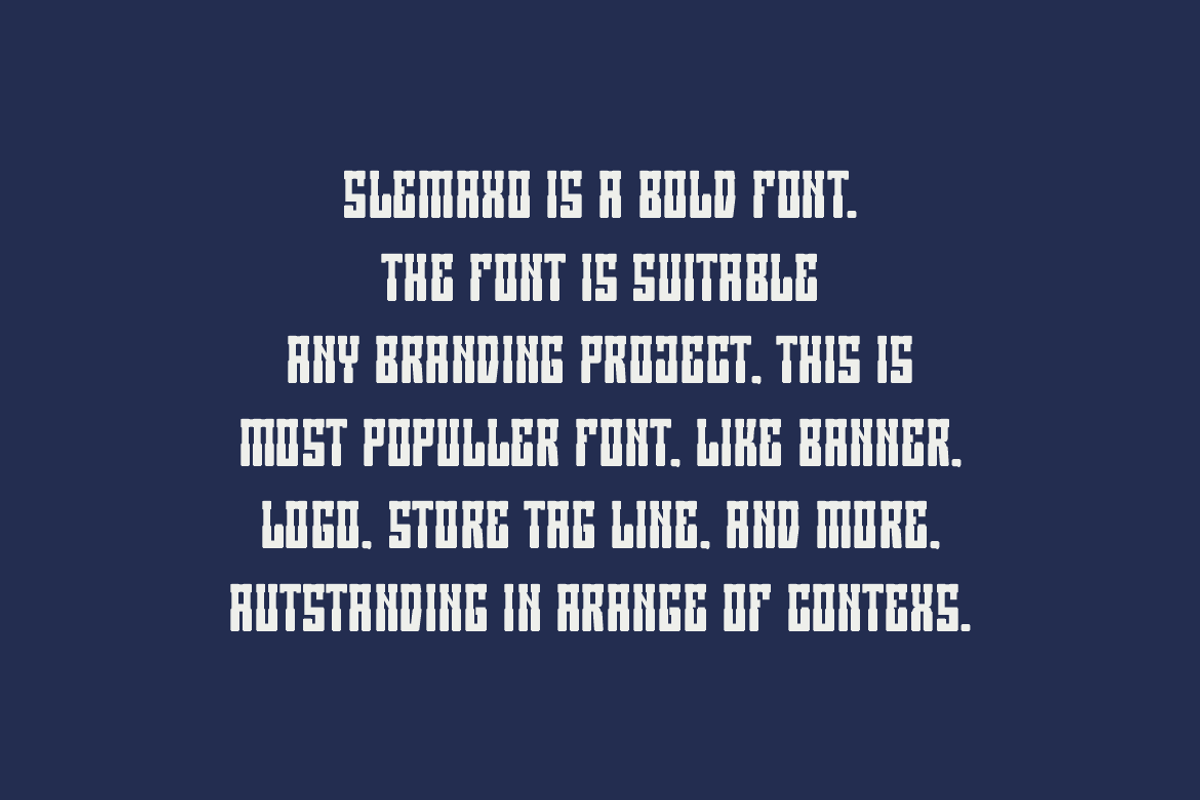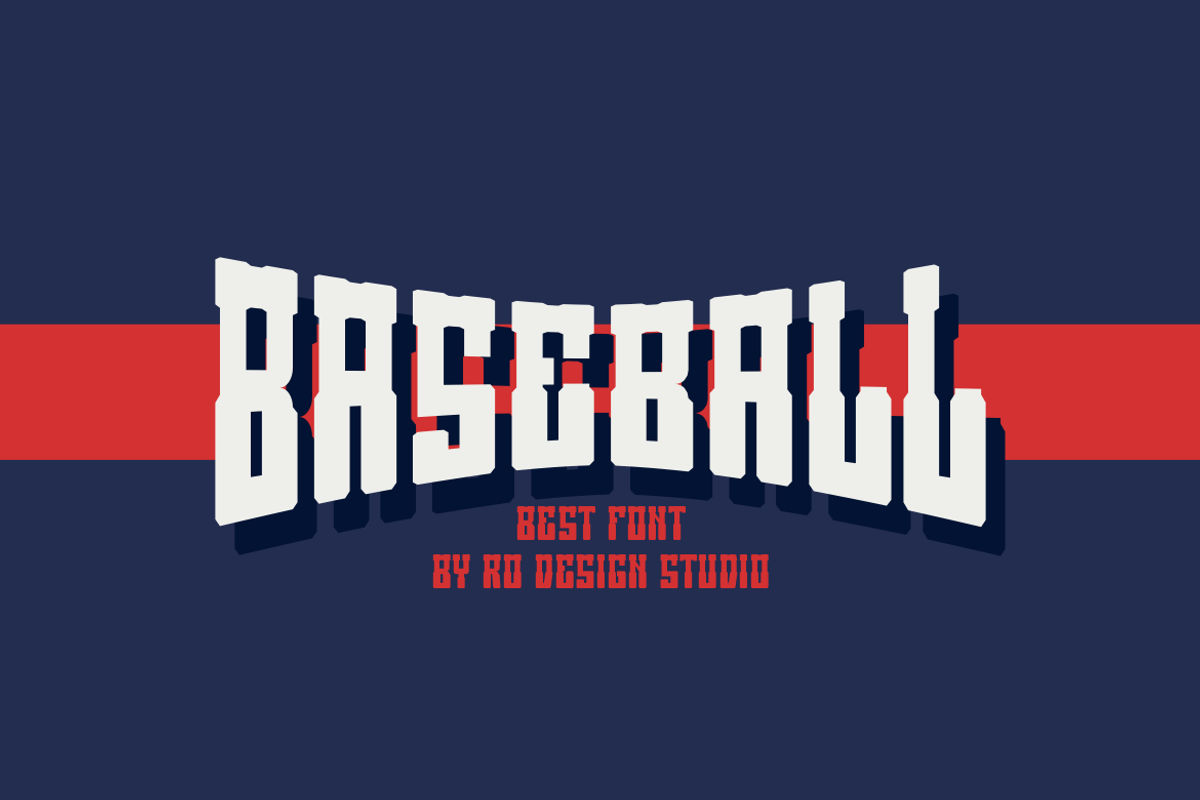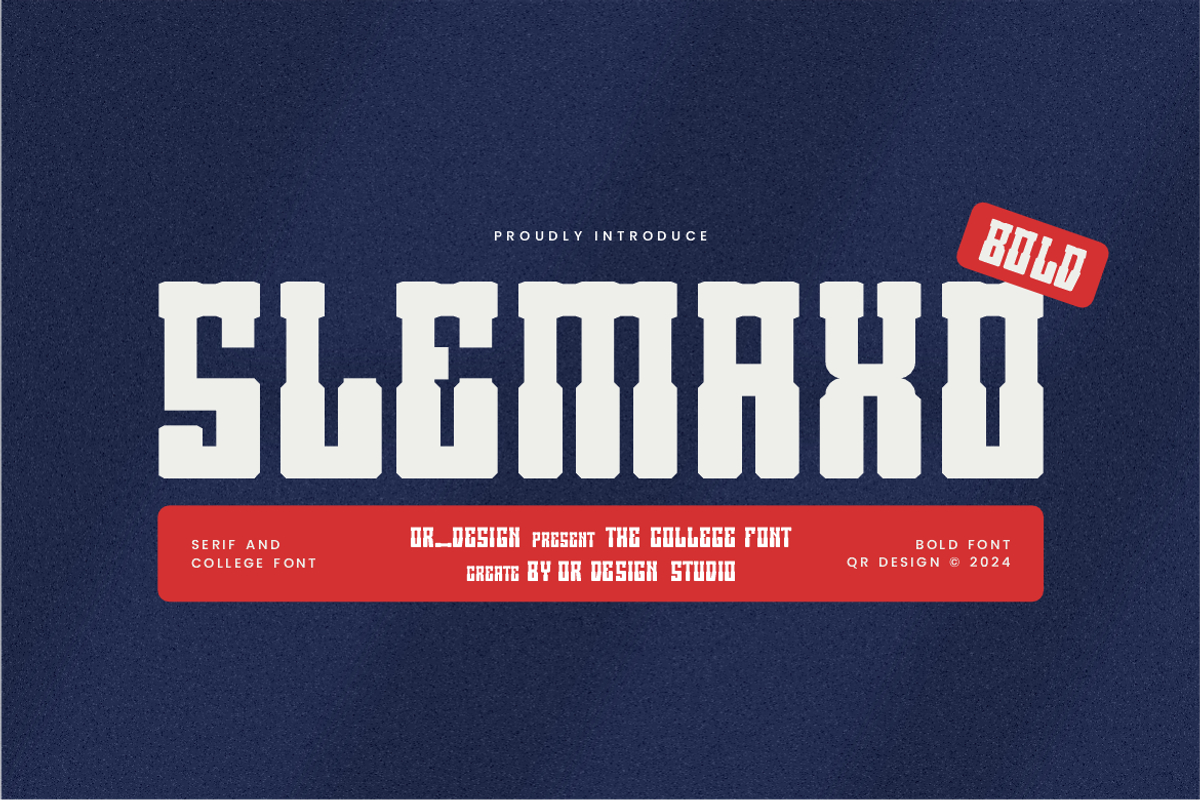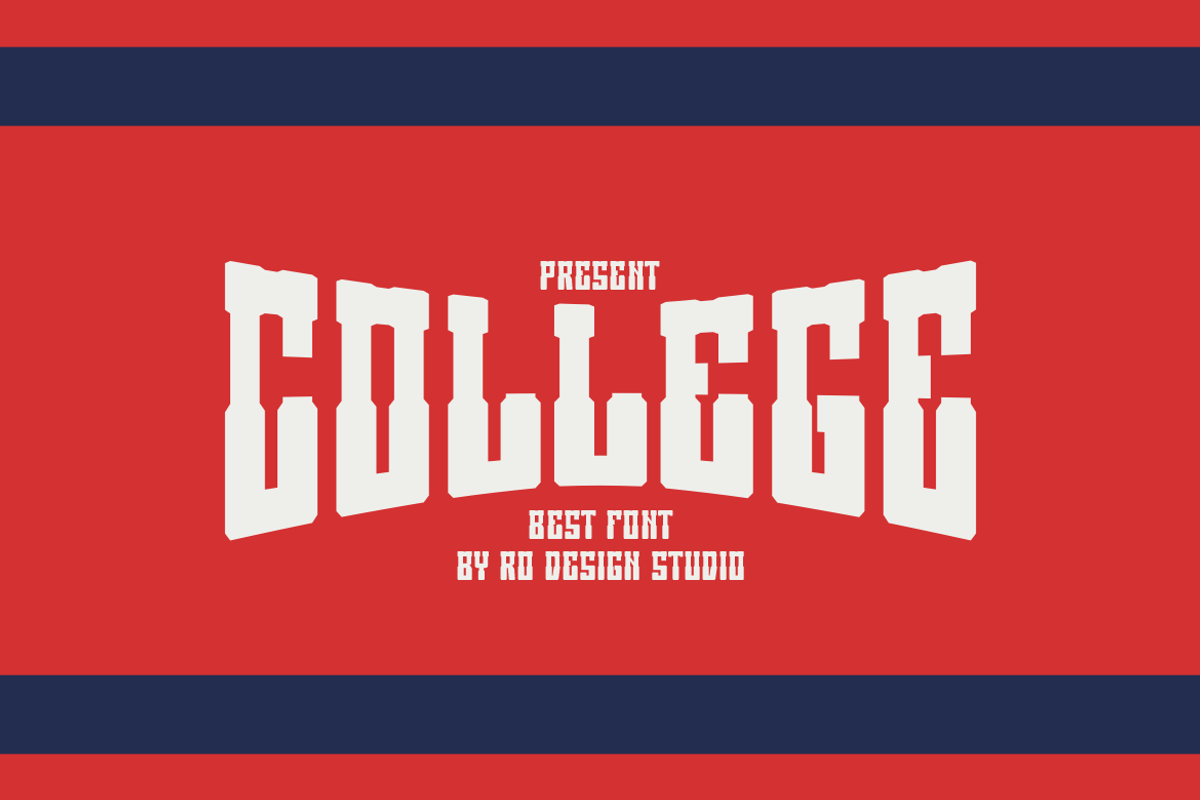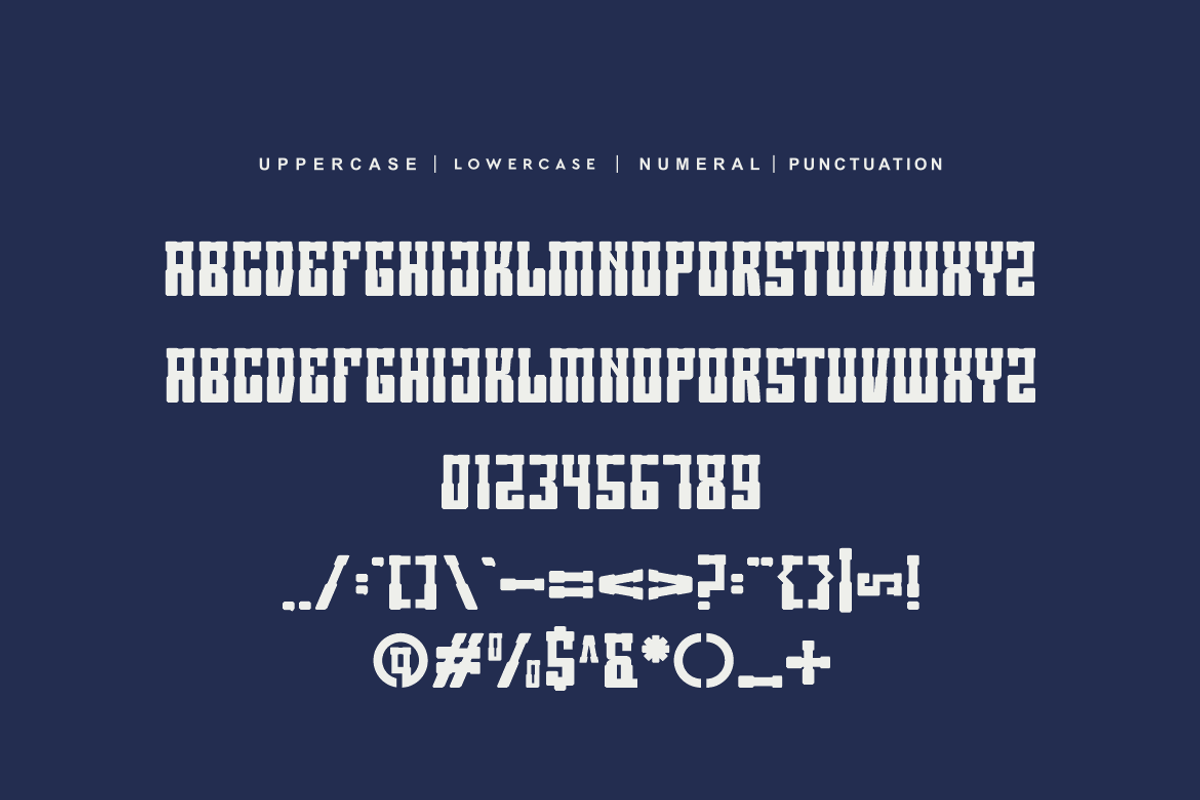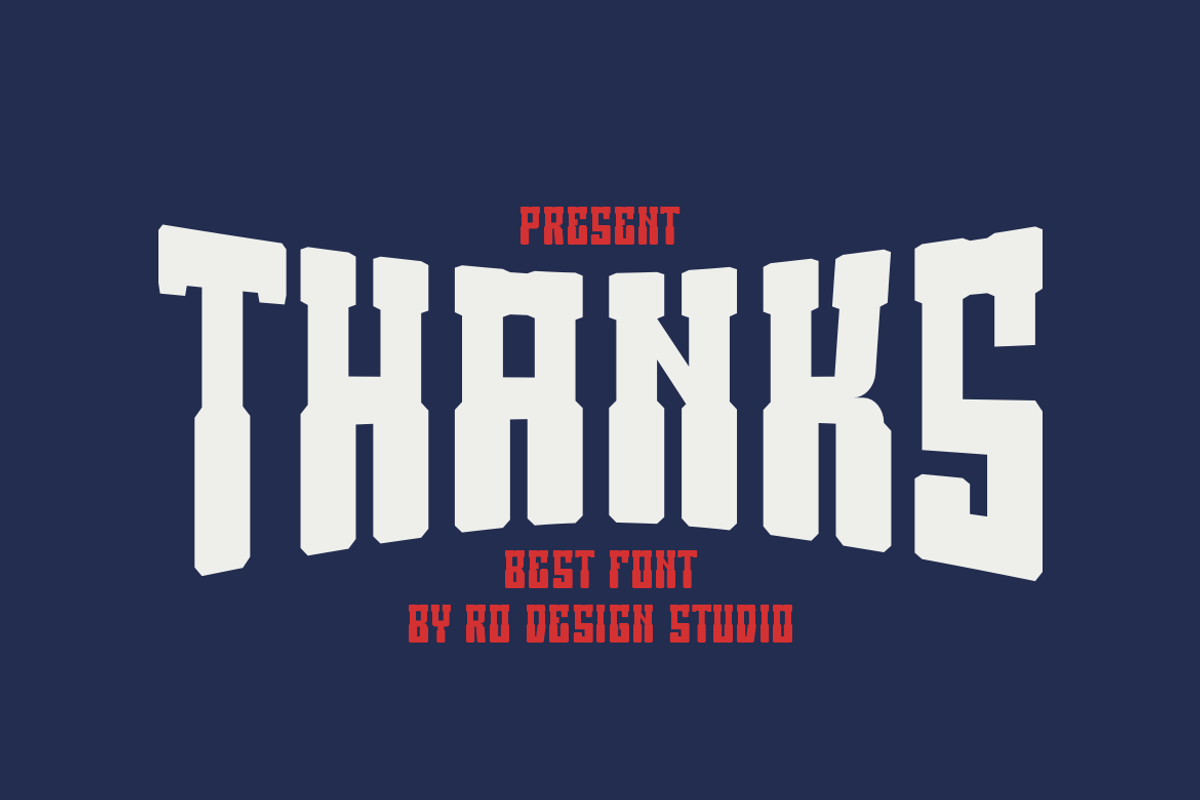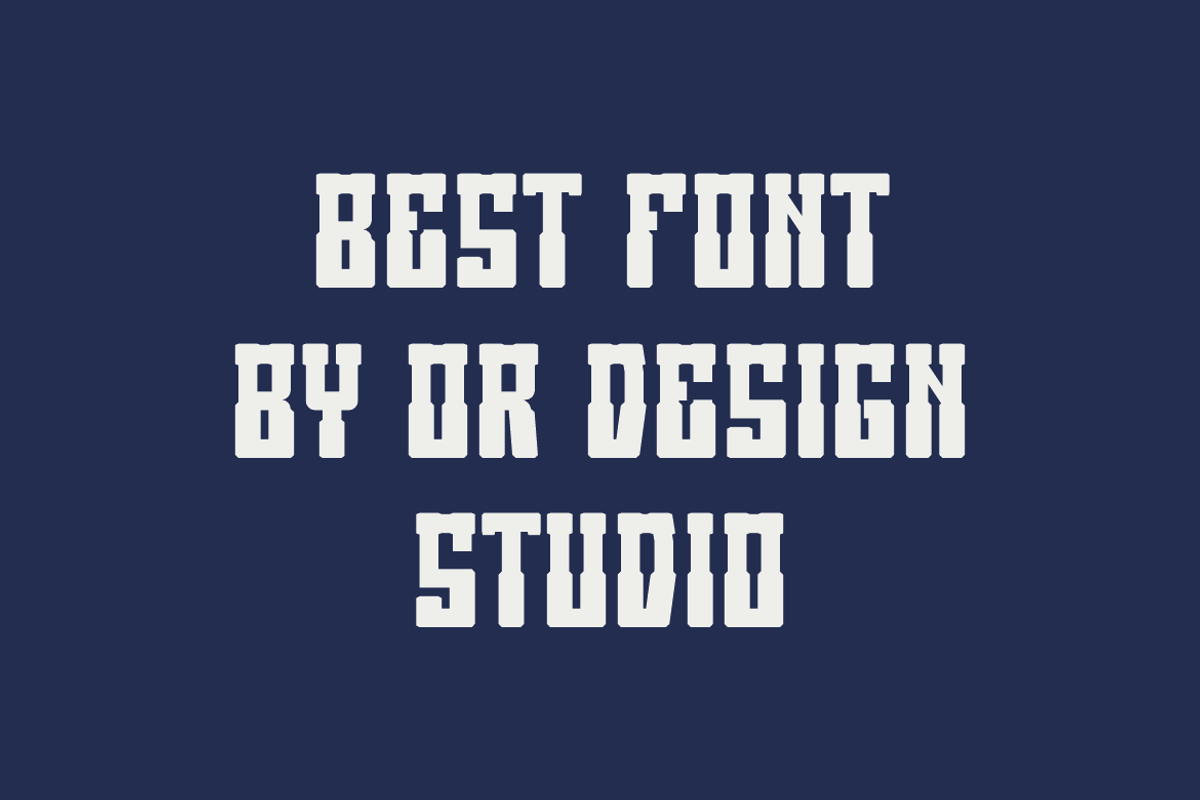
Slemaxo - Baseball & College Font
Slemaxo Font is a bold and authentic display font. The font is suitable for any branding project like poster, logo, sport, and many more. Outstanding in a wide range of contexts.